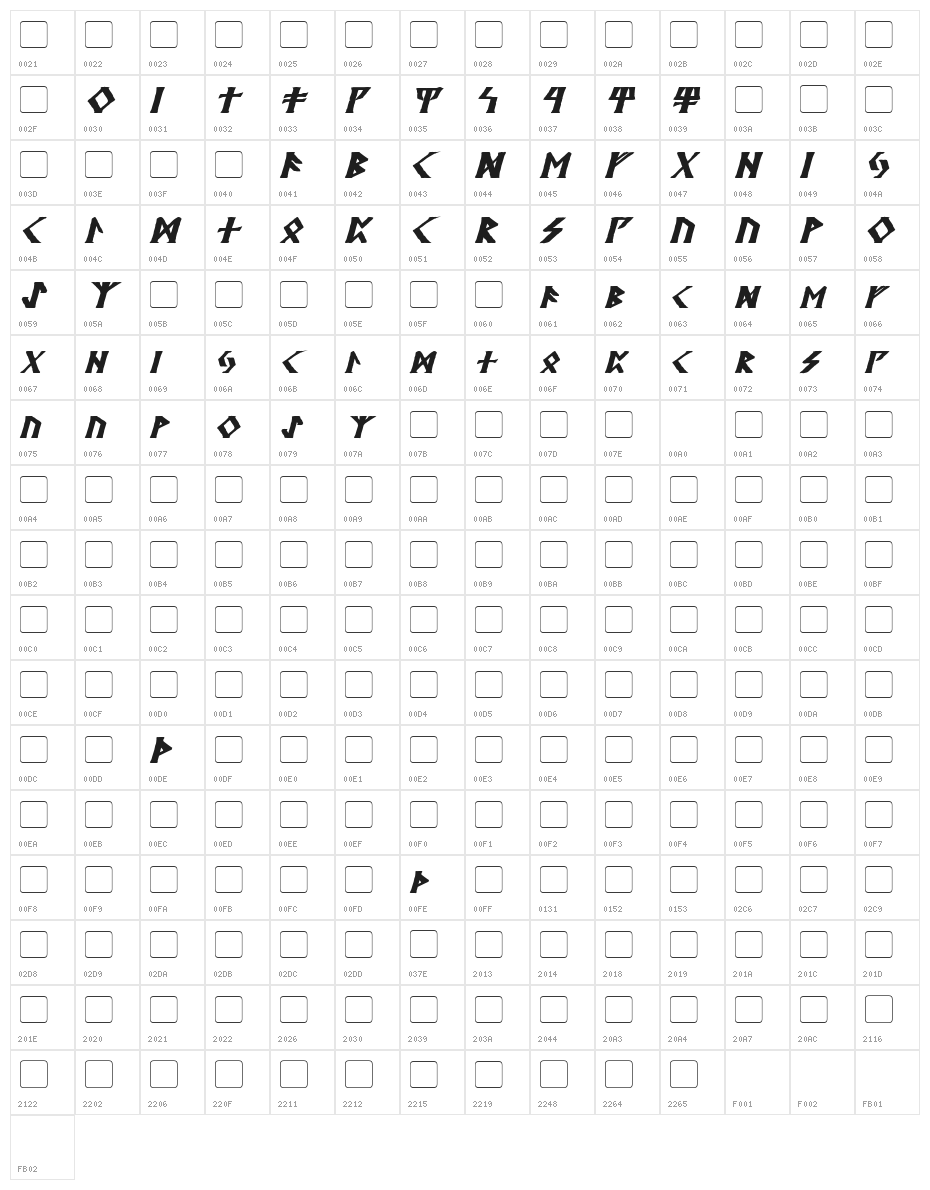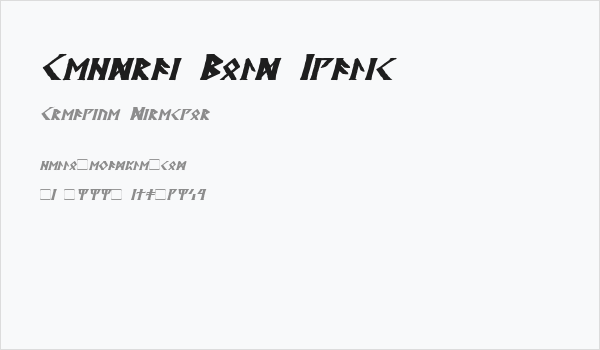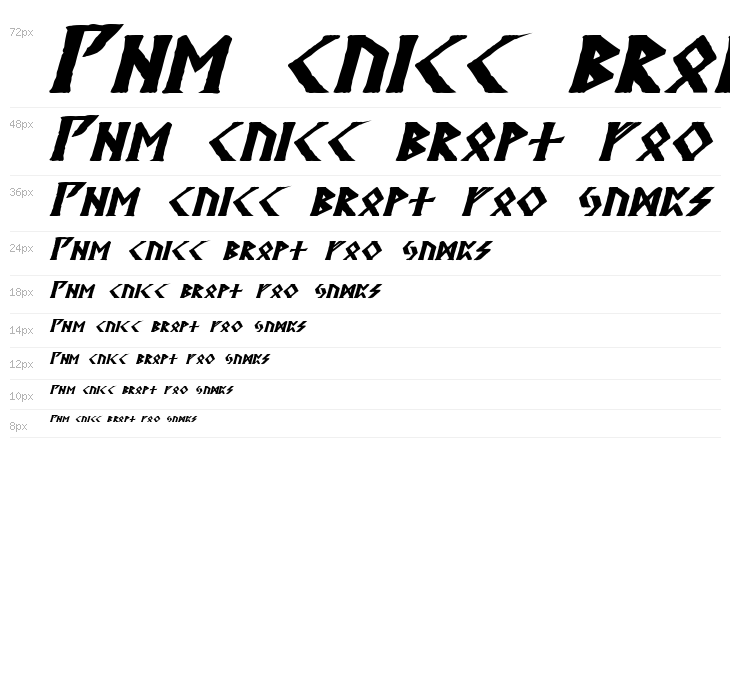
Kehdrai Bold Italic Font
Kehdrai Bold Italic Description
This font features a bold and italicized style with sharp, angular edges and a distinct geometric flair. The characters are heavily stylized, giving them a futuristic and edgy appearance. The strokes are thick and consistent, contributing to a strong visual impact. The font's unique design elements make it stand out, with each letter exhibiting a dynamic and energetic form. The angular cuts and slanted orientation add to its aggressive and modern aesthetic, making it suitable for projects that require a bold statement.
| Proposed Projects | Ideal for sci-fi themed posters, video game titles, edgy branding, and modern graphic design projects. |